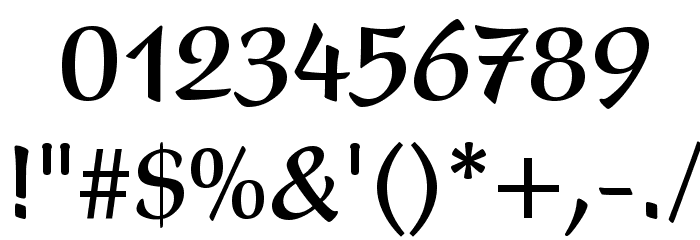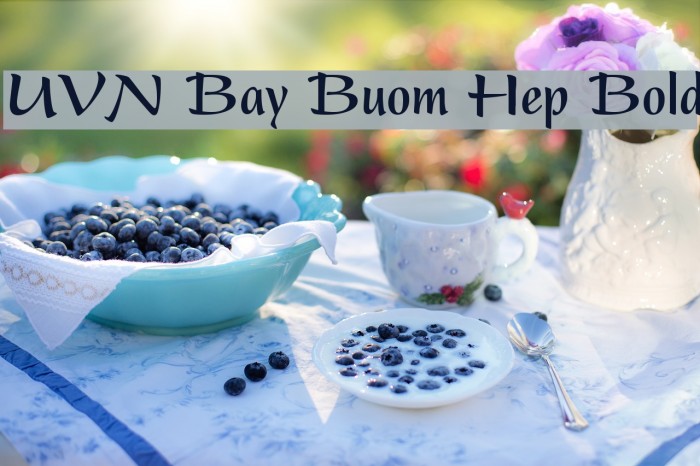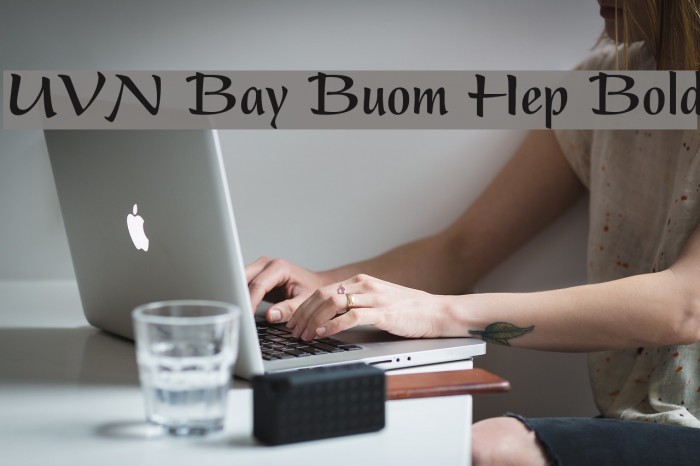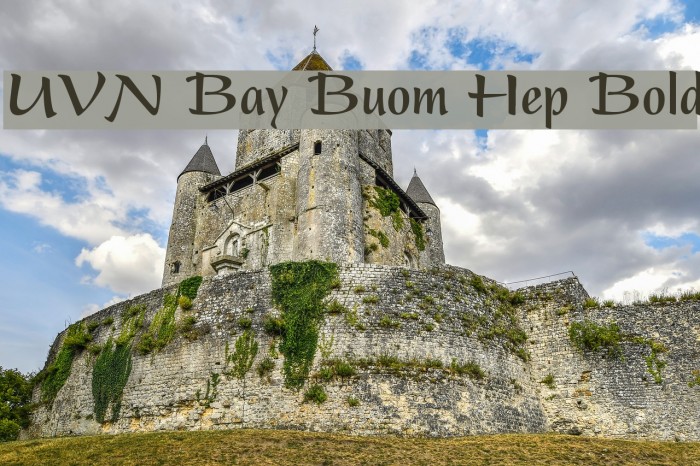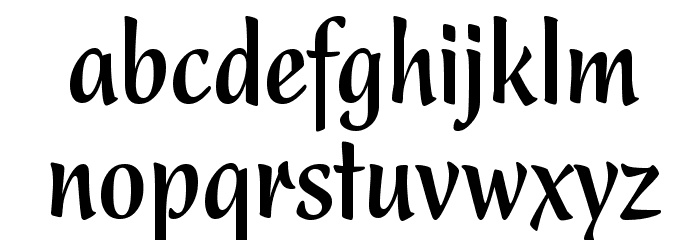
UVN Bay Buom Hep Bold Font
UVN Bay Buom Hep Bold Description
This font features a bold and dynamic style with a calligraphic flair. The uppercase letters exhibit a flowing, cursive-like quality with sharp, angular serifs that add a touch of elegance and sophistication. The lowercase letters maintain a consistent style, with smooth curves and a slightly condensed form, enhancing readability while retaining a decorative appeal. The numerals are distinct and bold, matching the overall aesthetic of the font. Special characters are well-integrated, maintaining the font's unique style. This font is ideal for projects that require a blend of elegance and boldness.
A bold, calligraphic font with elegant, angular serifs from Uncategorized fonts.